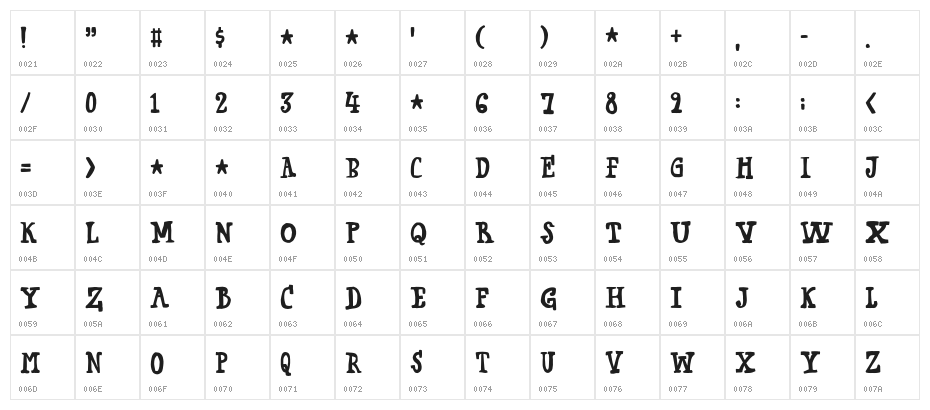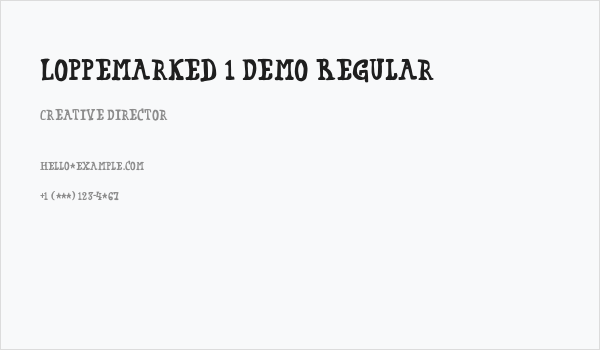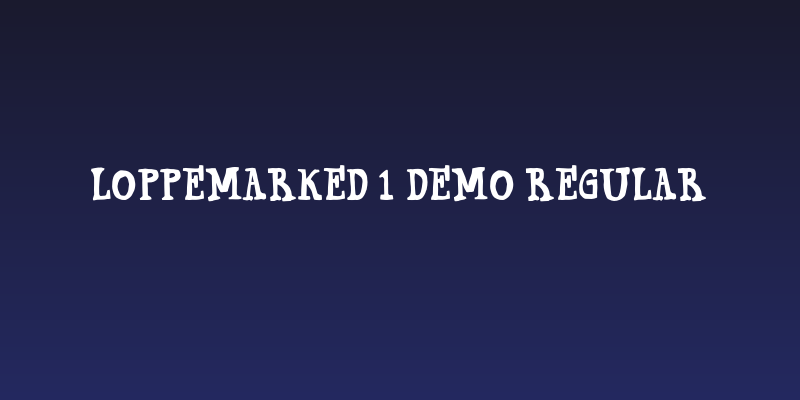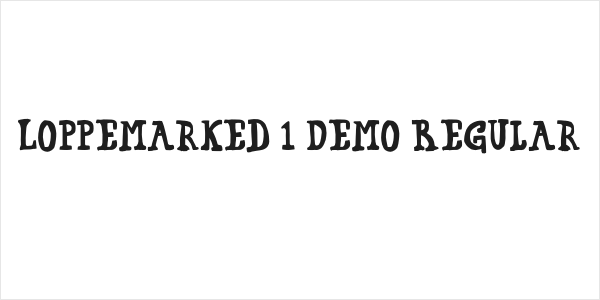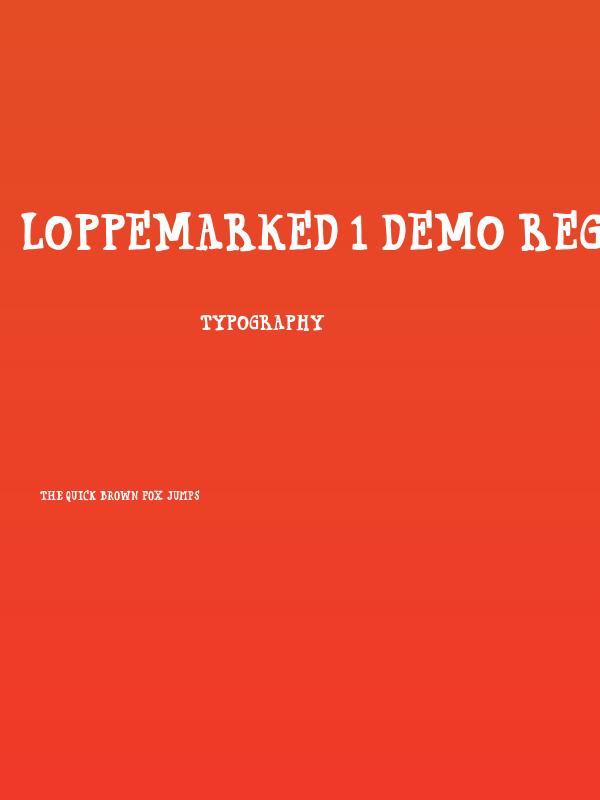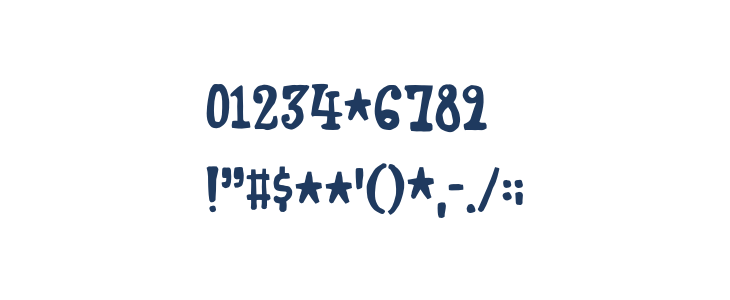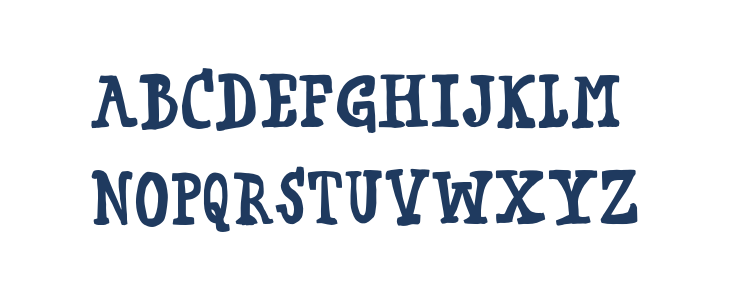
Loppemarked 1 Demo Regular Font
Loppemarked 1 Demo Regular Description
This font features a bold and playful style with a hand-drawn appearance. The characters are slightly irregular, giving them a whimsical and artistic feel. The uppercase letters are prominent and have a strong presence, while the lowercase letters maintain a consistent style that complements the uppercase. The numbers and special characters are designed with the same playful aesthetic, making them suitable for creative projects. The font's unique style is characterized by its decorative elements and uneven strokes, which add to its charm and appeal.
| Proposed Projects | Ideal for children's books, playful branding, posters, and creative invitations. |